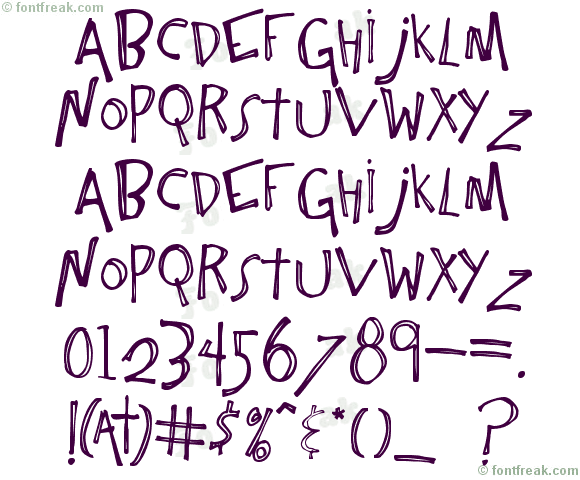
One Constant
About One Constant
One Constant by Divide By Zero is a unique display font that captures attention with its playful and slightly whimsical style. This font features irregular, hand-drawn letterforms that evoke a sense of creativity and spontaneity. The stroke weight is varied, giving the characters a dynamic feel, while the generous spacing between letters enhances readability. The overall design is characterized by its casual charm, making it an excellent choice for projects that require a personal touch.
The One Constant font is particularly well-suited for a range of creative applications. It thrives in contexts such as wedding invitations, where its informal elegance can convey warmth and joy. Additionally, it is a fantastic option for children’s book covers, providing a friendly and approachable aesthetic that appeals to young readers. Restaurant menus can also benefit from this font, as it adds a sense of fun and vibrancy to the dining experience. Moreover, it works well for social media graphics, where its distinctive style can help content stand out in crowded feeds.
What truly sets the One Constant font apart is its ability to blend playfulness with clarity. It invites viewers to engage with the text while ensuring that the message remains clear and accessible. With its unique charm and flexibility, the One Constant font free download is an excellent addition to any designer's toolkit, perfect for making any project memorable and impactful.